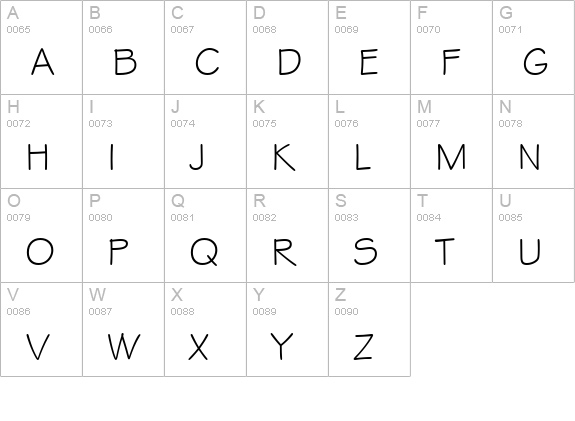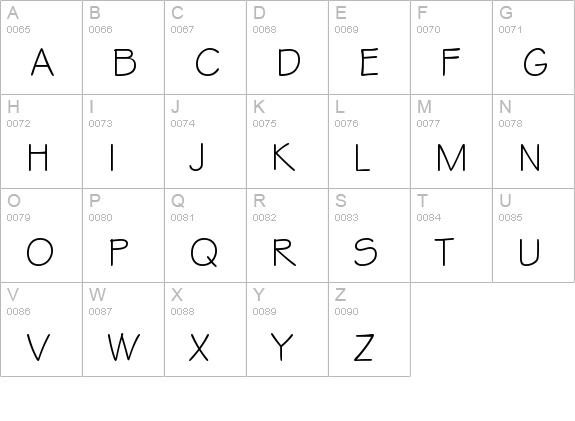
Stylus BT is a sophisticated and elegant font that exudes a sense of modernity and style. With its sleek lines and graceful curves, this font is perfect for adding a touch of class to any design project. Whether you're creating a professional presentation or designing a chic logo, Stylus BT is sure to make a lasting impression. The best part? Stylus BT is completely free to download at FontsMarket.com. This means you can elevate your creative projects without having to break the bank. Don't miss out on the opportunity to enhance your designs with this stunning font that combines timeless elegance with contemporary flair. Download Stylus BT today and take your designs to the next level.